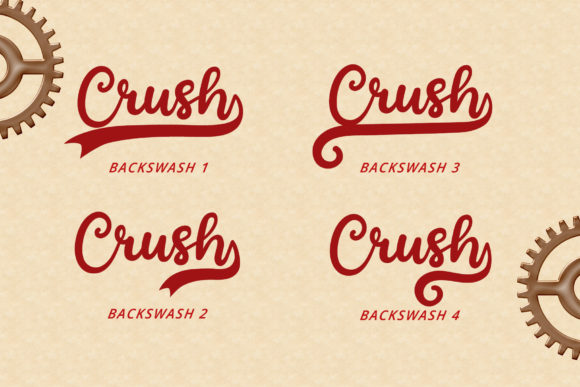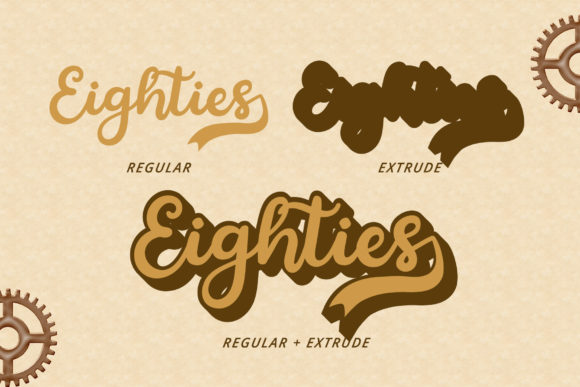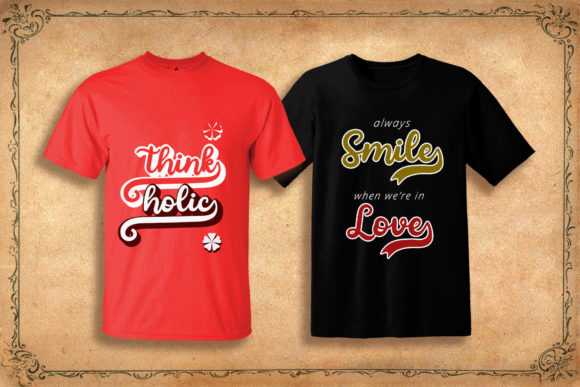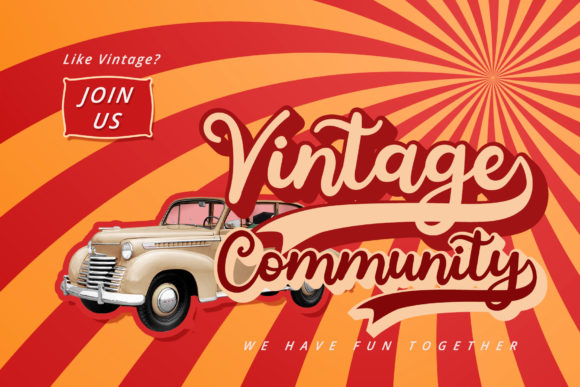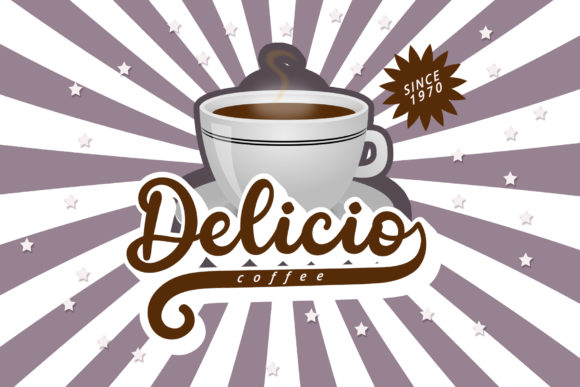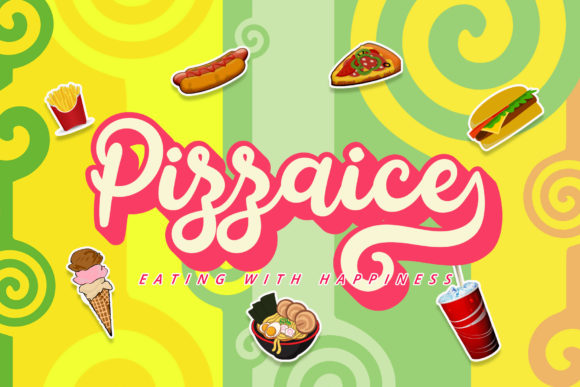
Introducing Charter Winter Font: The Sweetest Handwritten Font for Your Creative Projects
Are you tired of using the same old fonts for your creative projects? Look no further! Charter Winter Font is here to add a touch of sweetness and retro charm to your designs. This versatile handwritten font is perfect for crafters, designers, and anyone looking to add a personal touch to their work.
What is Charter Winter Font?
Charter Winter Font is a beautifully crafted handwritten font, designed with a retro touch. Its unique and elegant style makes it perfect for a wide range of creative projects, from invitations and stationery to social media posts and more. The font’s versatility is one of its standout features, allowing you to use it in various contexts and still achieve stunning results.
Key Features of Charter Winter Font
- Handwritten with love: Charter Winter Font is carefully crafted to resemble handwritten text, giving your designs a personal and warm feel.
- Retro touch: The font’s retro vibe adds a touch of nostalgia and playfulness to your designs, making them stand out from the crowd.
- Incredibly versatile: Use Charter Winter Font for invitations, stationery, social media posts, and more – the possibilities are endless!
- Sweet and elegant: The font’s sweet and elegant style makes it perfect for a wide range of creative projects, from formal to informal.
Uses for Charter Winter Font
Charter Winter Font is perfect for a variety of creative projects, including:
- Invitations: Create beautiful and unique invitations for weddings, birthday parties, baby showers, and more.
- Stationery: Add a personal touch to your stationery with Charter Winter Font – perfect for letters, cards, and journaling.
- Social media posts: Make your social media posts stand out with Charter Winter Font – use it to create eye-catching graphics, quotes, and more.
- Branding: Use Charter Winter Font to create a unique and memorable brand identity for your business or personal project.
Why Choose Charter Winter Font?
With so many fonts available, why choose Charter Winter Font? Here are just a few reasons:
- Unique style: Charter Winter Font has a unique and distinctive style that will set your designs apart from the crowd.
- Ease of use: The font is easy to use and works seamlessly with popular design software.
- High-quality design: Charter Winter Font is designed with high-quality and attention to detail, ensuring that your designs look professional and polished.
Tips for Using Charter Winter Font
Here are a few tips for getting the most out of Charter Winter Font:
- Experiment with colors: Charter Winter Font looks great in a variety of colors – experiment to find the perfect hue for your design.
- Mix and match: Combine Charter Winter Font with other fonts or design elements to create a unique and eye-catching design.
- Play with sizes: Use Charter Winter Font in different sizes to add visual interest and emphasis to your design.
Charter Winter Font is a sweet and versatile handwritten font that’s perfect for crafters, designers, and anyone looking to add a personal touch to their creative projects. With its retro touch and elegant style, this font is sure to become a favorite in your design arsenal. So why wait? Download Charter Winter Font today and start creating stunning designs that will leave a lasting impression!